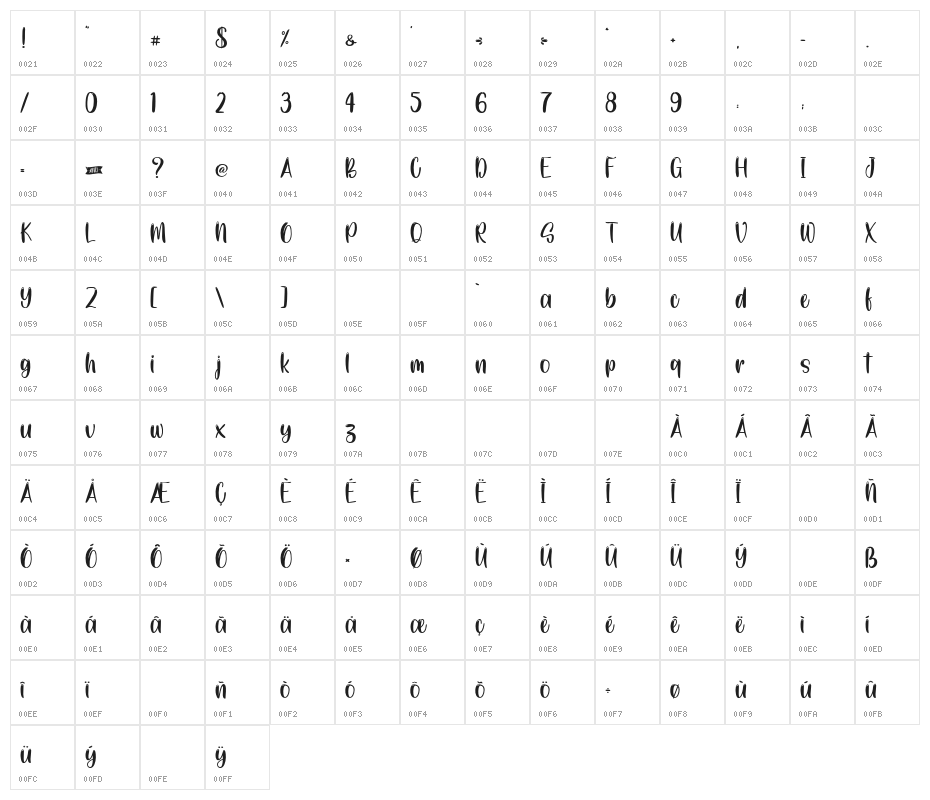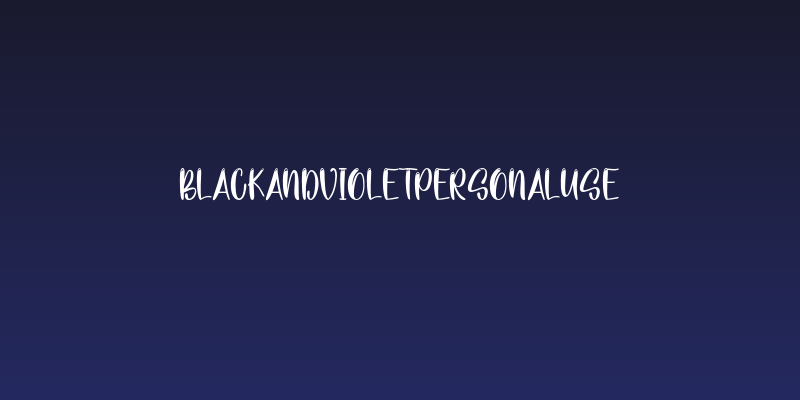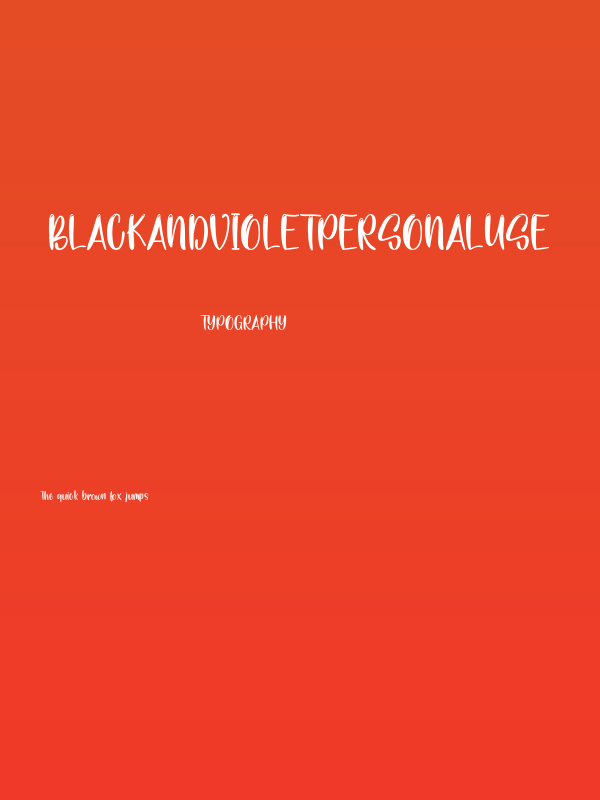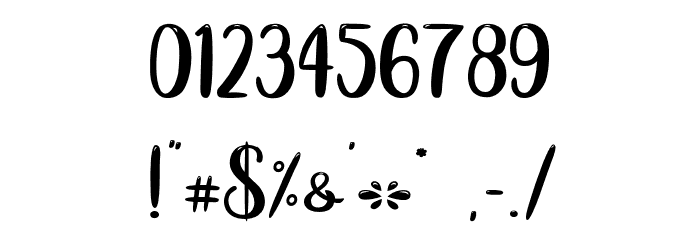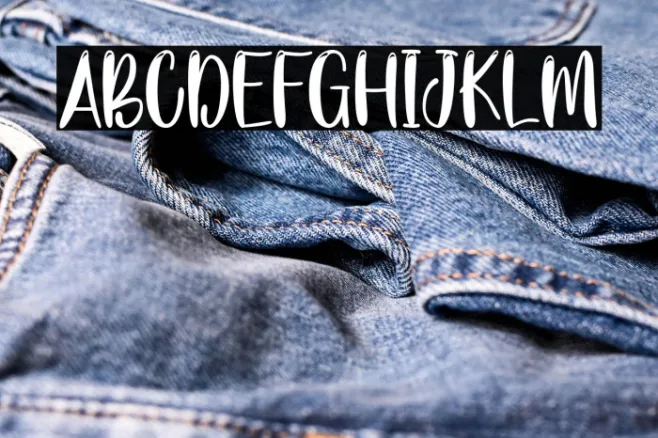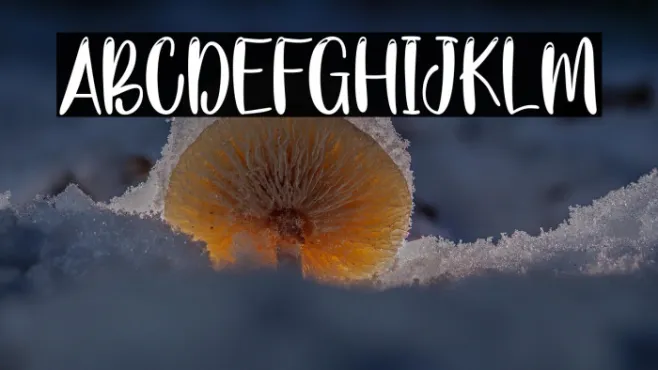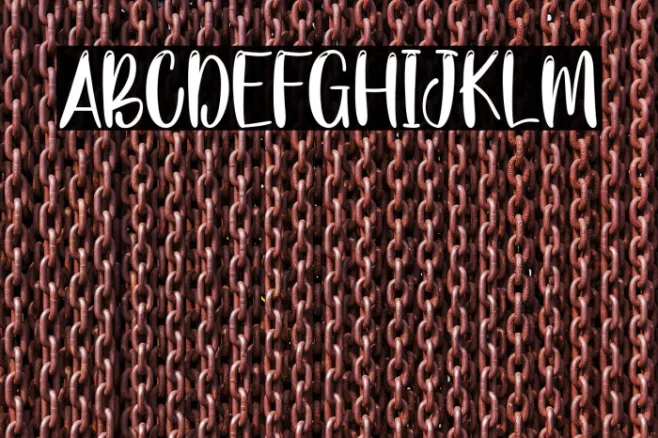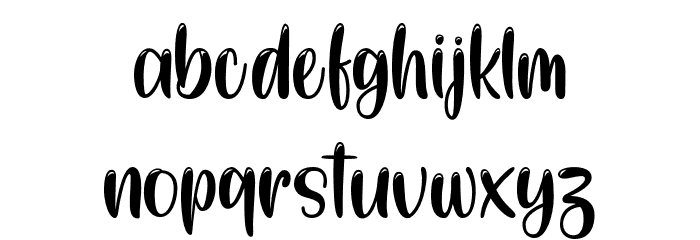
BlackandVioletPersonalUse Font
BlackandVioletPersonalUse Description
This font features a bold and flowing script style, characterized by its smooth, rounded edges and playful curves. The uppercase letters are tall and elegant, while the lowercase letters maintain a consistent flow, creating a harmonious balance. The numbers are clear and easily readable, complementing the overall design. Special characters are creatively integrated, adding a whimsical touch to the font. The strokes vary in thickness, providing a dynamic and lively appearance, making it suitable for eye-catching designs.